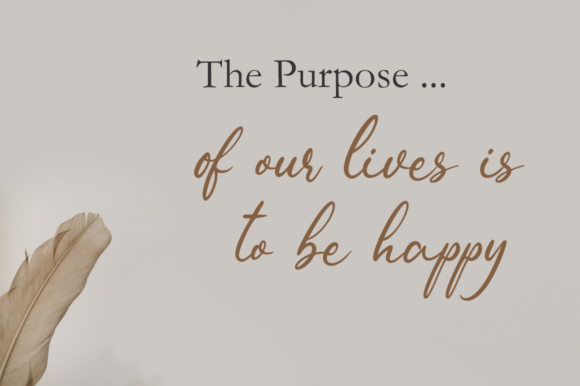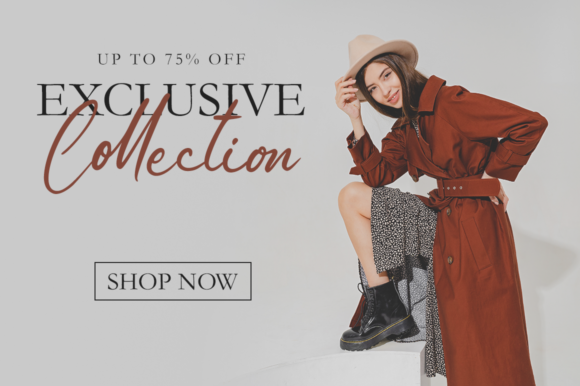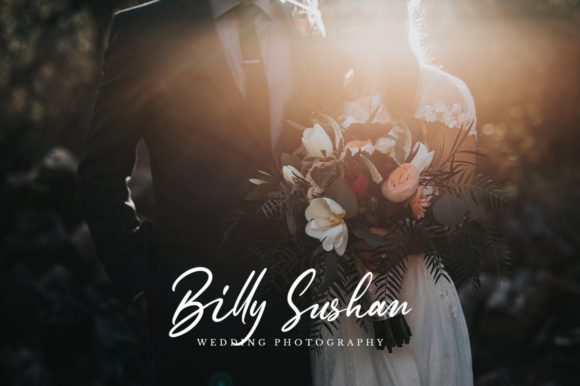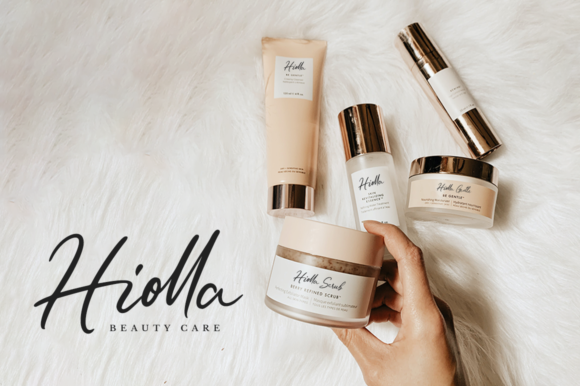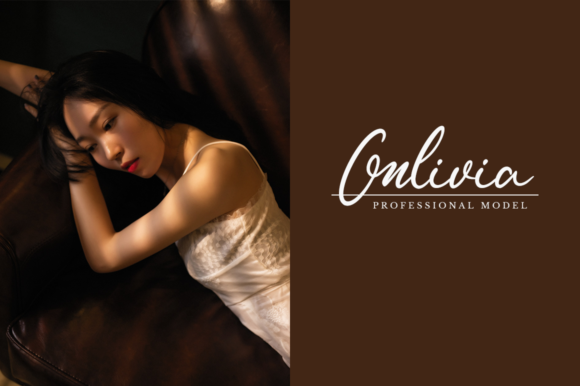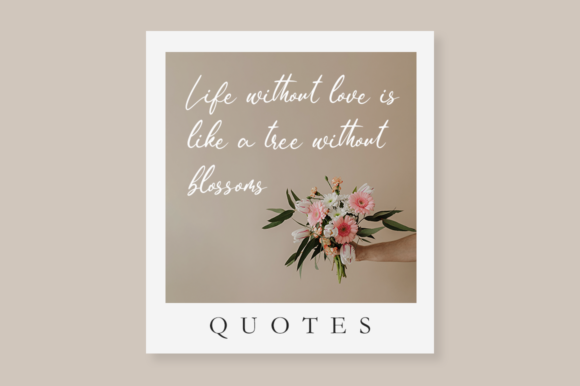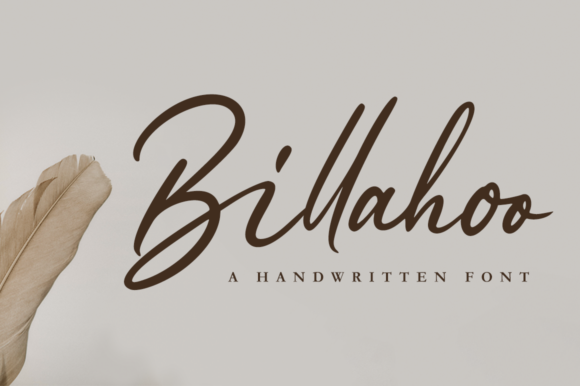
Introducing Billahoo Font: Elevate Your Designs with Elegance
Are you tired of using the same old fonts in your designs? Look no further! Billahoo Font is here to revolutionize the way you create. This naturally stunning handwritten font is elegant, sophisticated, and beautifully flowing, making it the perfect addition to take your lovely creations to the next level.
Handwritten fonts have a unique charm that can add a personal touch to any design. They evoke emotions, convey personality, and create a sense of connection with the viewer. Billahoo Font is no exception. With its fluid strokes and natural flow, this font is sure to captivate your audience and leave a lasting impression.
What Makes Billahoo Font Special?
So, what sets Billahoo Font apart from other fonts? Here are a few features that make it truly special:
- Elegant and Sophisticated: Billahoo Font exudes elegance and sophistication, making it perfect for designs that require a touch of luxury.
- Beautifully Flowing: The font’s fluid strokes and natural flow create a sense of movement and energy, adding visual interest to your designs.
- Versatile: Billahoo Font is versatile and can be used for a wide range of design projects, from branding and packaging to wedding invitations and more.
- Easy to Read: Despite its elegant and cursive nature, Billahoo Font is easy to read, making it perfect for body text and headings.
Uses for Billahoo Font
Billahoo Font is perfect for designers and crafters who want to add a touch of elegance and sophistication to their creations. Here are some ideas for using Billahoo Font:
- Branding and Packaging: Use Billahoo Font to create stunning brand identities, product labels, and packaging designs that stand out.
- Wedding Invitations: Add a touch of romance and elegance to your wedding invitations, save-the-dates, and other stationery with Billahoo Font.
- Digital Products: Use Billahoo Font to create eye-catching digital products, such as printable art, planners, and journals.
- Social Media Graphics: Elevate your social media graphics with Billahoo Font, creating stunning posts, stories, and quotes that grab attention.
Tips for Using Billahoo Font
To get the most out of Billahoo Font, here are some tips to keep in mind:
- Pair with Other Fonts: Experiment with pairing Billahoo Font with other fonts to create a unique and visually appealing combination.
- Adjust Font Size: Play with font sizes to create visual hierarchy and add emphasis to important text.
- Use Colors Wisely: Choose colors that complement the elegant and sophisticated feel of Billahoo Font.
| Font Name | Billahoo Font |
In conclusion, Billahoo Font is a naturally stunning handwritten font that can elevate your designs to new heights. With its elegant and sophisticated feel, beautifully flowing strokes, and versatility, this font is perfect for designers and crafters who want to add a touch of luxury to their creations. So why wait? Try Billahoo Font today and take your designs to the next level!